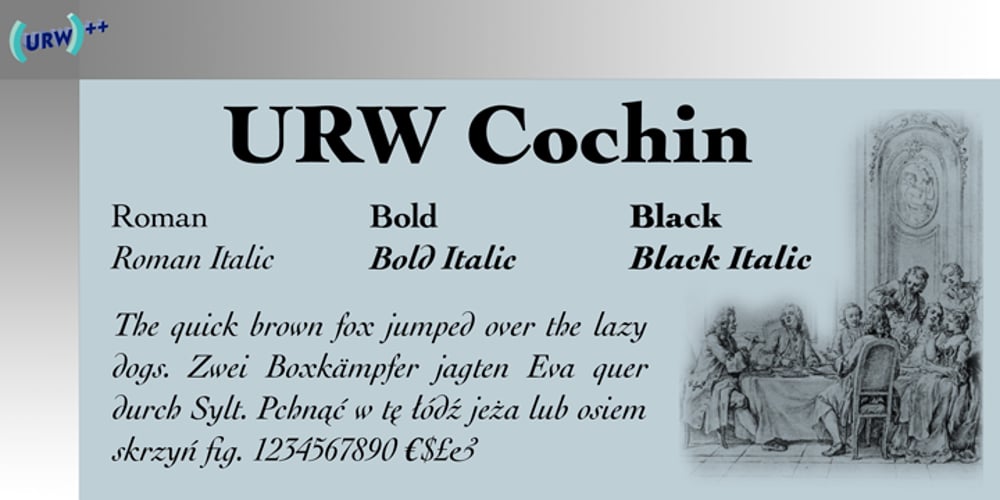
Cochin
Cochin font
Cochin Font Family was designed by Georges Peignot and published by URW Type Foundry. Cochin contains 6 styles and family package options. The Cochin font is based on the work of eighteenth-century punchcutter, Cochin. Charles Peignot commissioned the revival of this strong typeface in 1912. The capitals are squarish. The lowercase has long ascenders and sharp serifs, giving Cochin an unusual elegance. The curved ascender in the italic lowercase d is a major characteristic and the p and q lack foot serifs. Cochins overall vivacity derives from the engravings on copper, produced in France in the eighteenth century. Cochin is a trademark of Linotype Corp. registered in the U.S. Patent and Trademark Office and may be registered in certain other jurisdictions in the name of Linotype Corp. or its licensee Linotype GmbH.